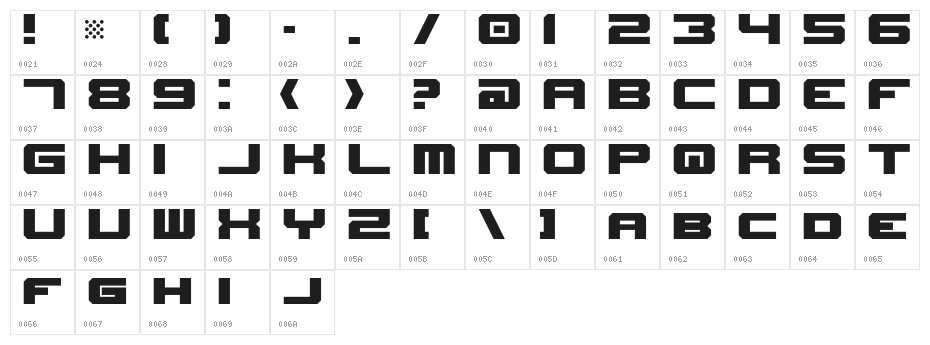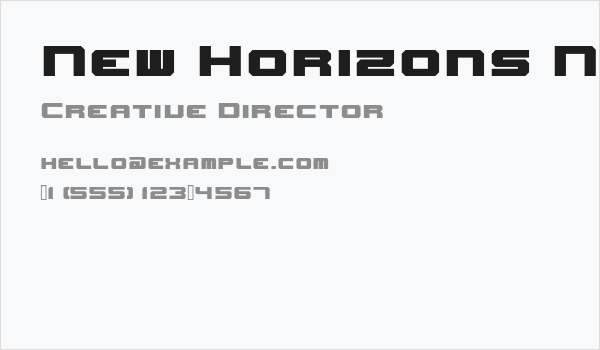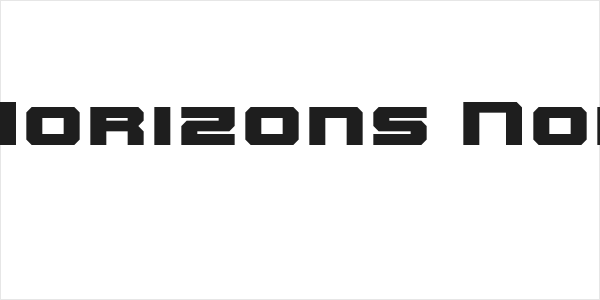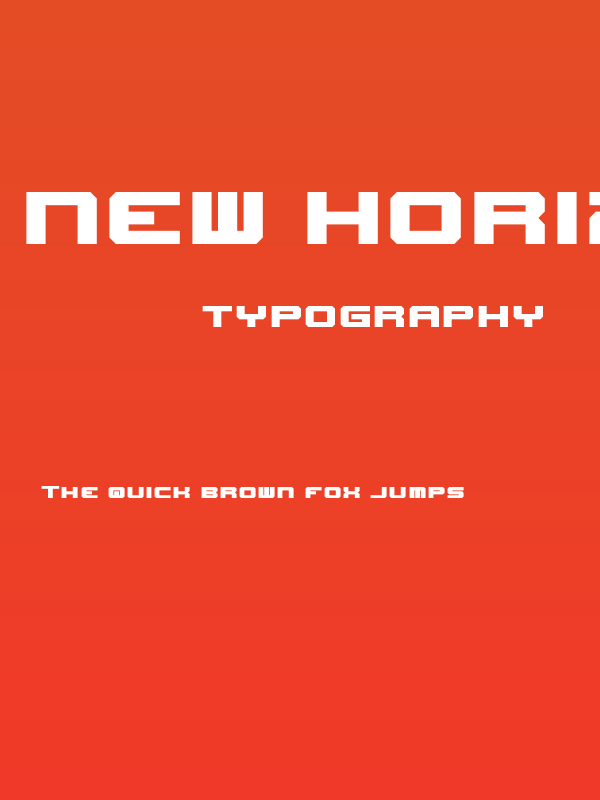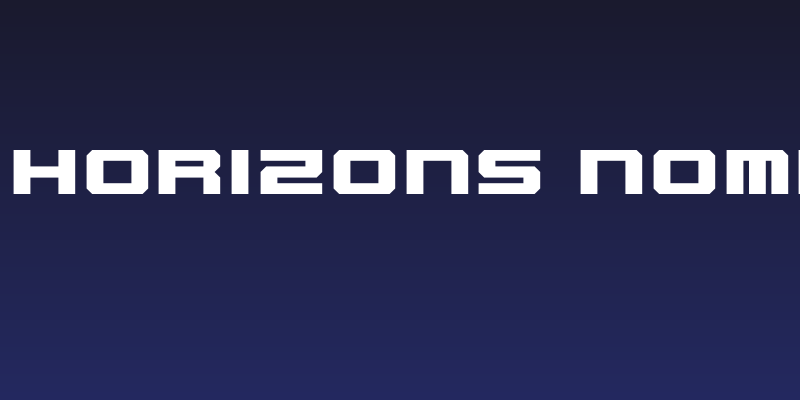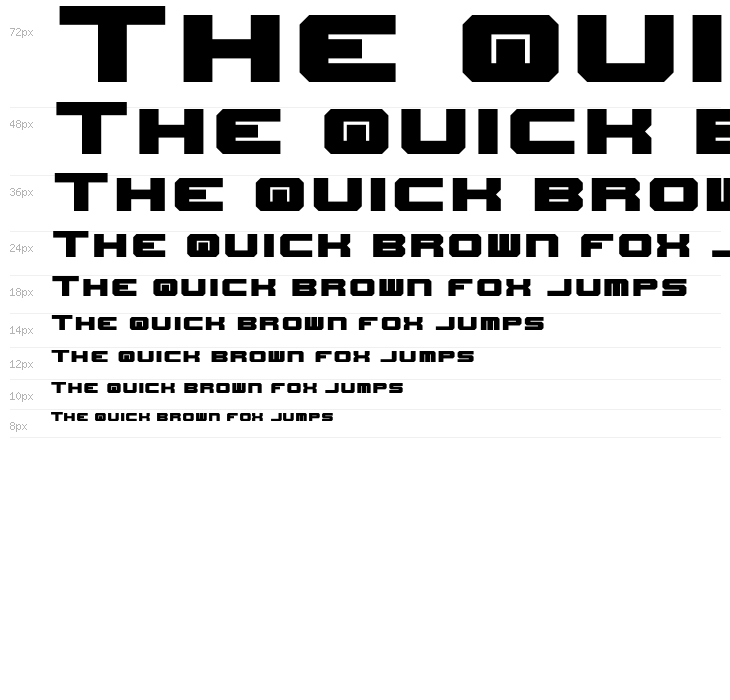
New Horizons Nominal Font
New Horizons Nominal Description
This font features a bold, geometric design with a futuristic aesthetic. The characters are constructed with sharp angles and uniform thickness, giving it a strong and impactful presence. The uppercase and lowercase letters maintain a consistent style, with a block-like appearance that is both modern and assertive. The numerals and special characters follow the same design principles, ensuring a cohesive look across all elements. The font's distinct style makes it suitable for projects that require a contemporary and tech-inspired feel.